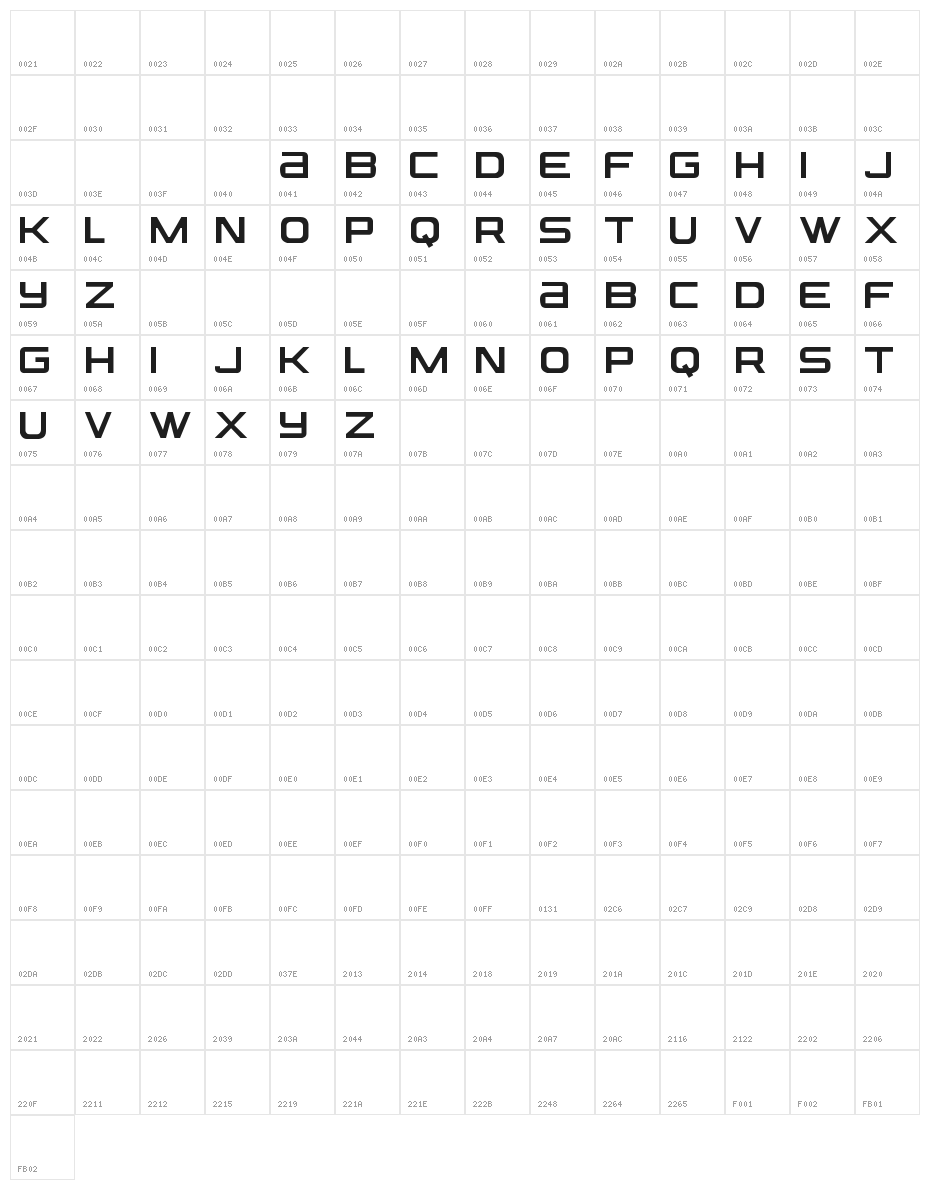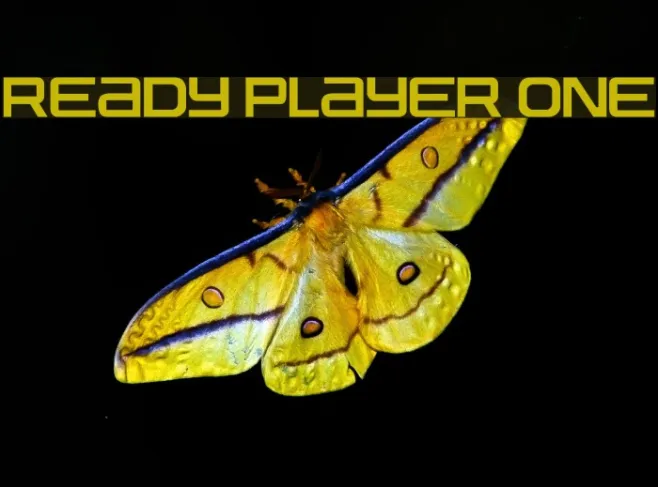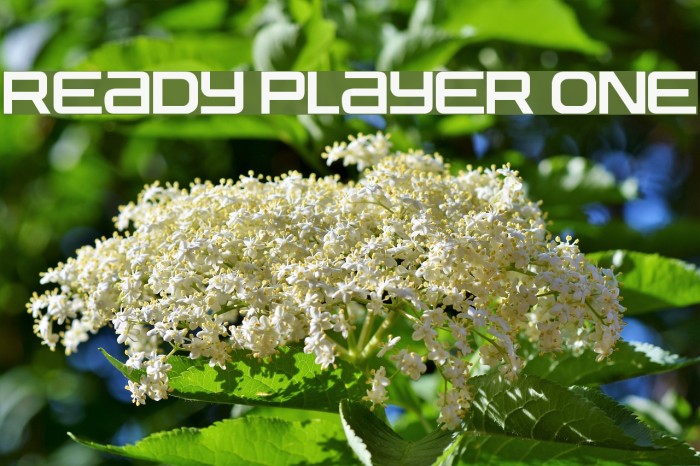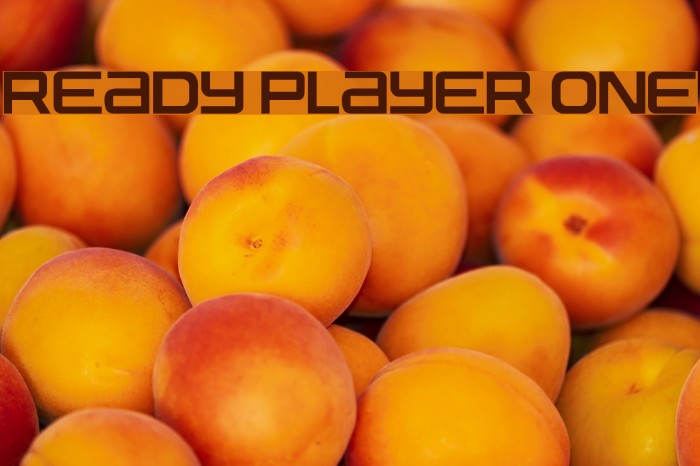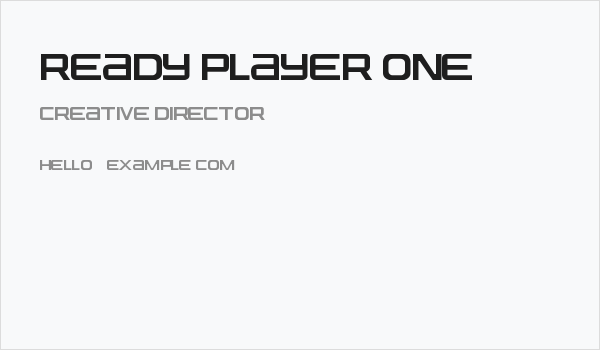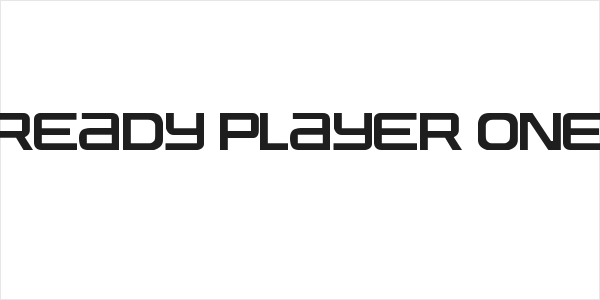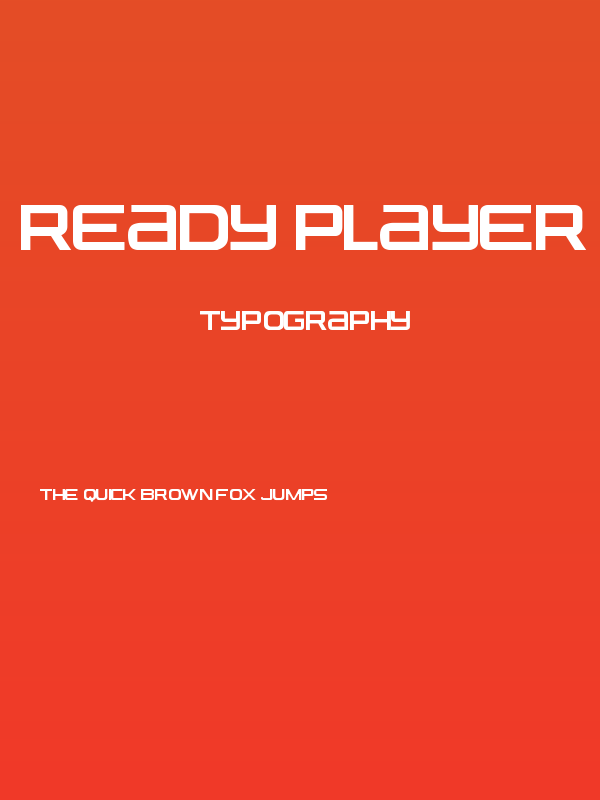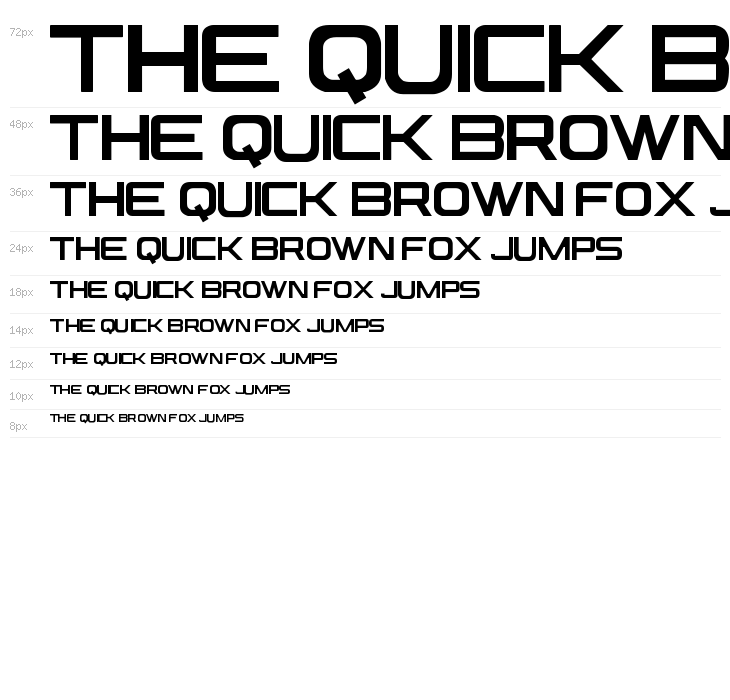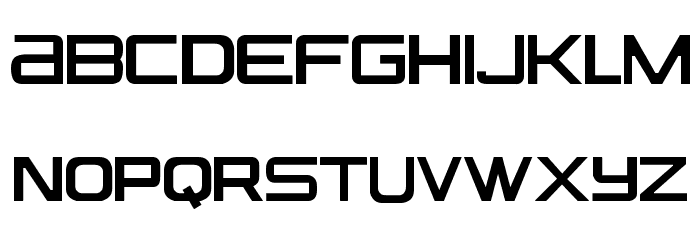
Ready Player One Font
Ready Player One Description
This font features a futuristic and geometric design, characterized by its bold and angular letterforms. The uppercase and lowercase letters maintain a consistent width, creating a uniform appearance. The font's structure is reminiscent of digital and sci-fi aesthetics, with sharp edges and a blocky style. The characters are tightly spaced, enhancing its modern and sleek look. This typeface is ideal for projects that require a contemporary and tech-inspired feel, such as video game titles, movie posters, or technology branding. Its distinct style ensures high readability while maintaining a unique visual appeal.
| Proposed Projects | Ideal for video game titles, sci-fi movie posters, technology branding, and digital media. |